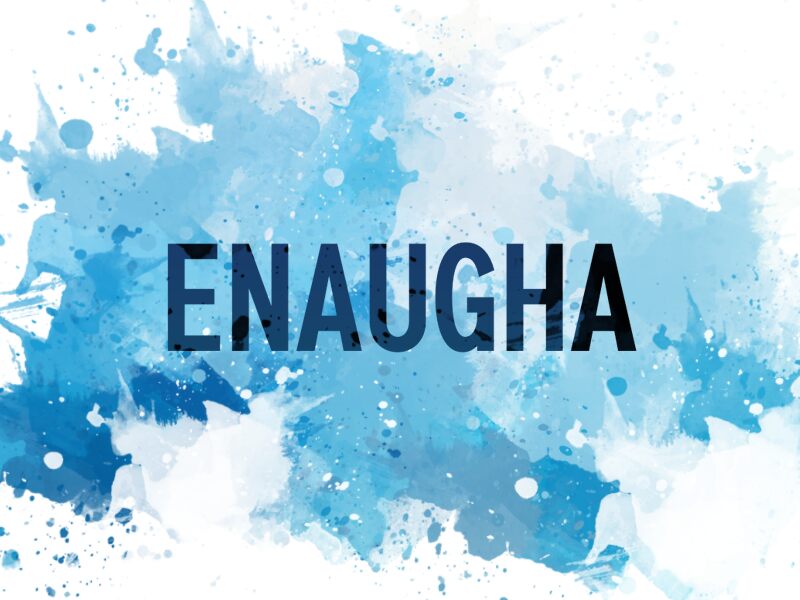
Enougha
Enougha font by Wep is a condensed sans serif typeface with a modern geometric structure. Its clean and assertive style is unmatched, giving it a professional aura where it’s used. All characters are present in uppercase only with the lack of lowercase letters, but it still provides all the familiar ligatures in its repertoire.
Use Enougha for posters, brochures, headlines, titles, packaging projects, or magazine covers. Use it further for restaurant menus, website and mobile app designs (with legible buttons), reading material that needs heavy text, body texts for blogs and articles in addition to digital marketing ads (social media posts).